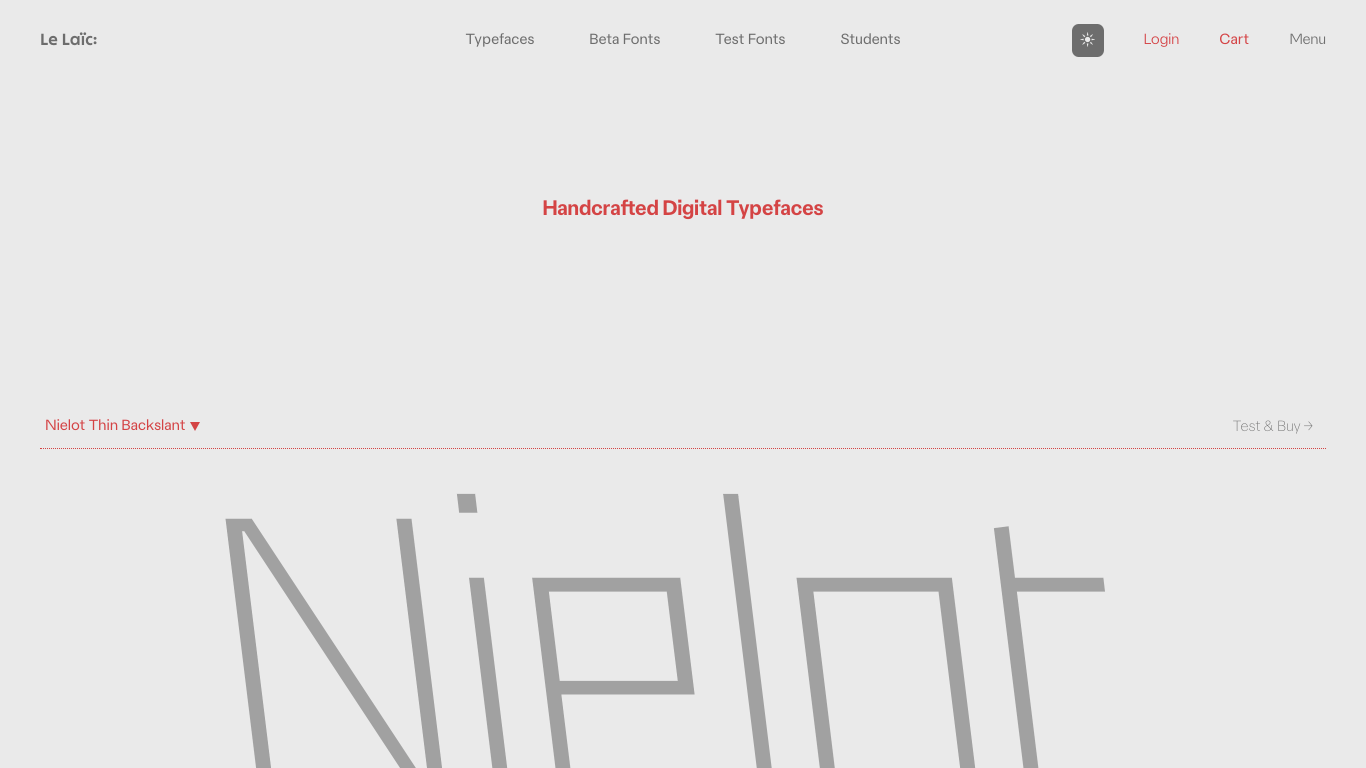
Le Laïc
Poland
2018
​Laic Type Foundry, based in Poland, was founded by Łukasz Dziedzic in 2018. The foundry specializes in creating retail and custom typefaces, emphasizing a blend of contemporary design with Polish typographic heritage. Laic Type Foundry has created notable typefaces like Laic, Laic Serif, and Laic Sans, blending modern design with traditional letterforms. They've collaborated with clients such as the National Museum in Warsaw, the Polish Film Institute, and Agora SA, providing custom typefaces for branding and publications.